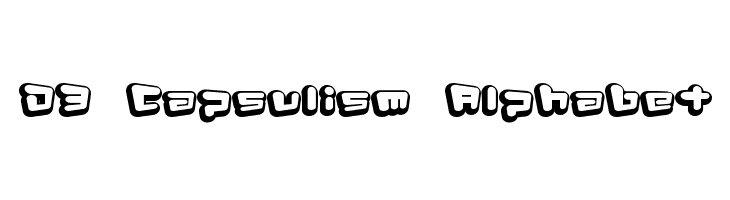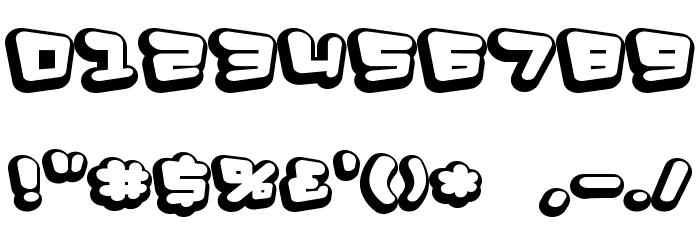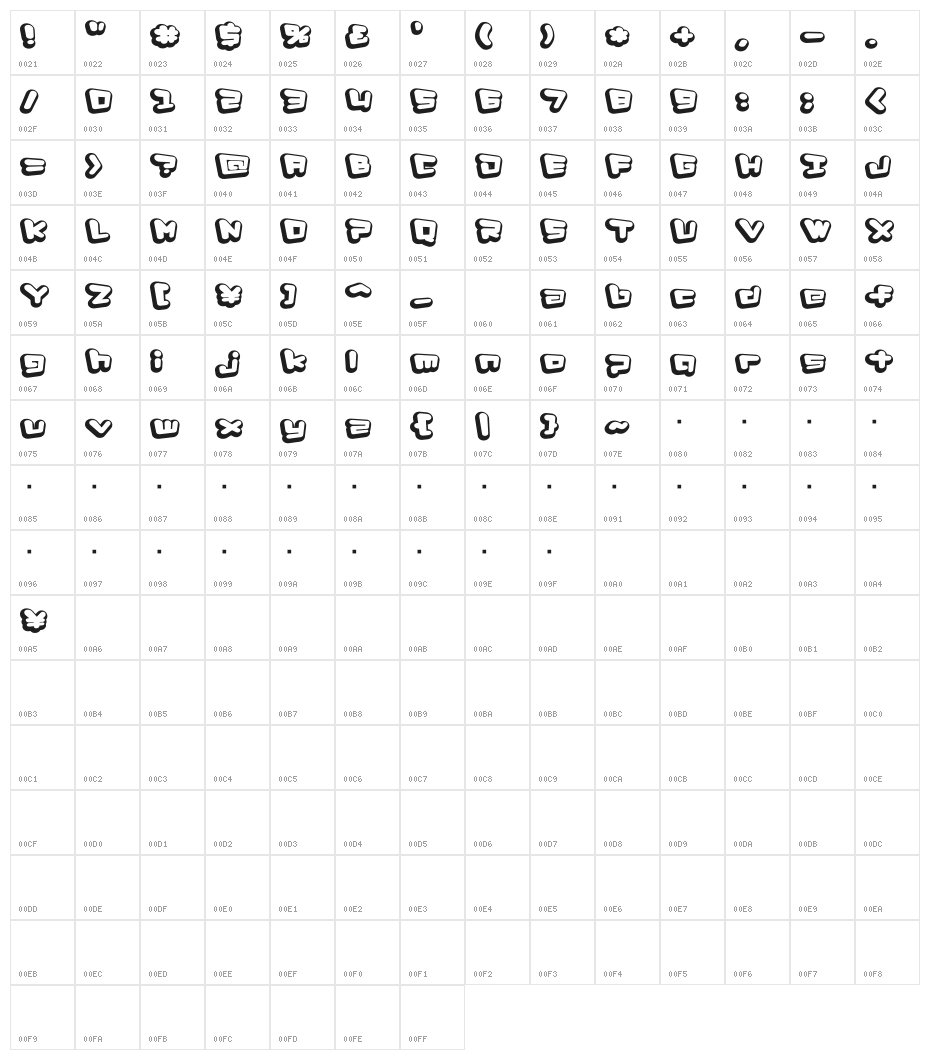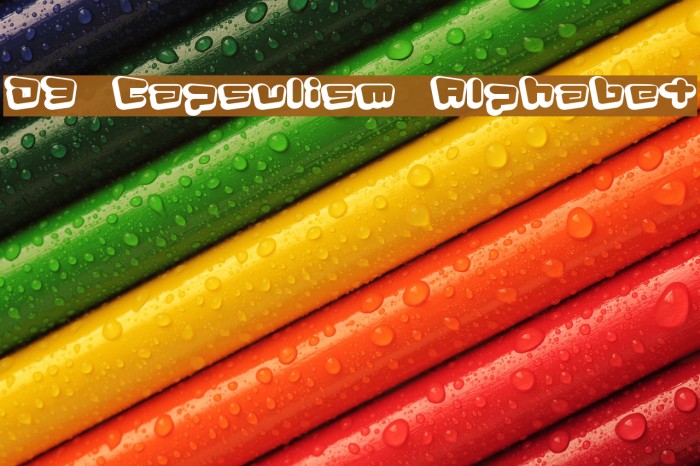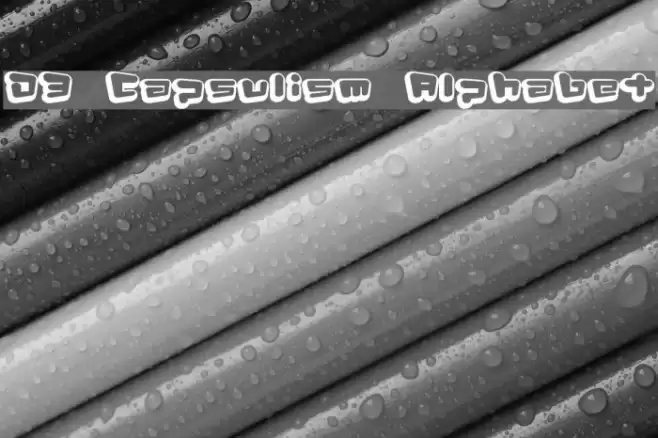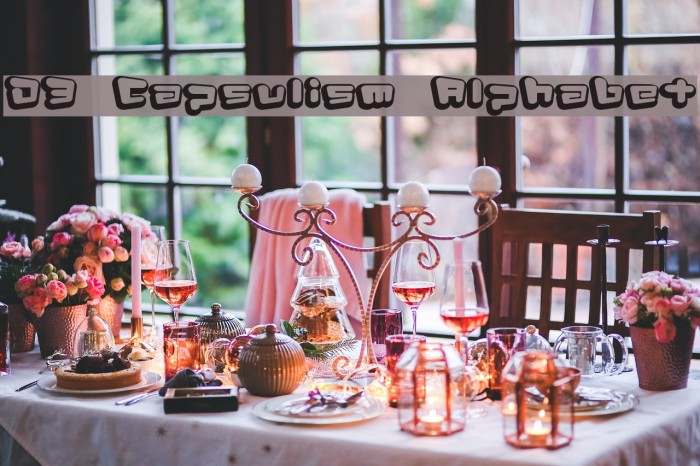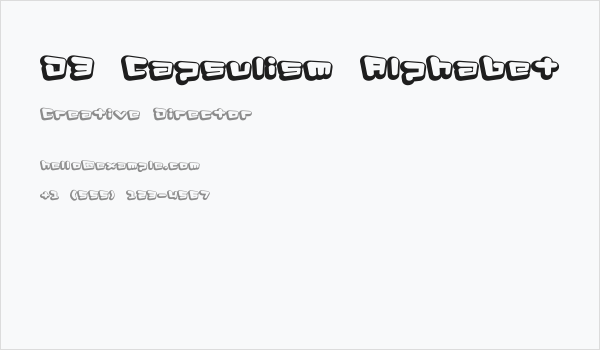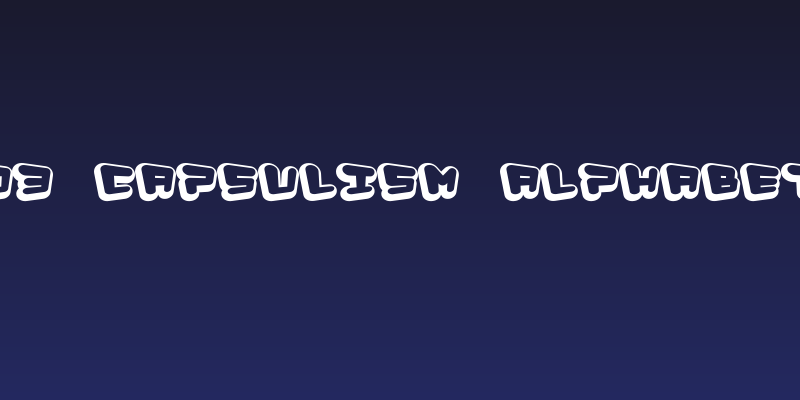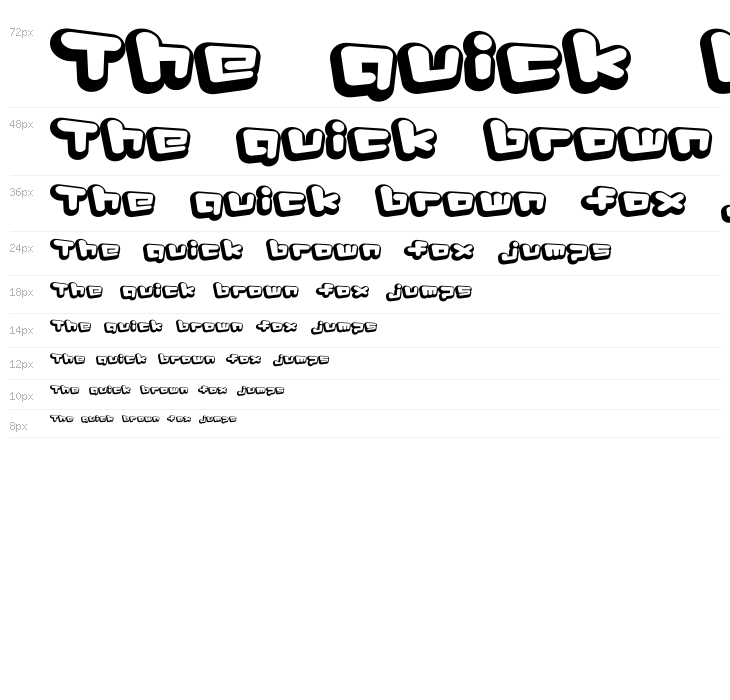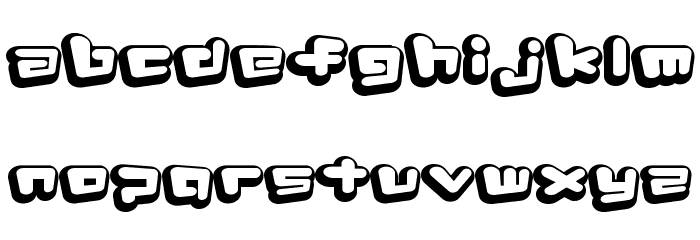
D3 Capsulism Alphabet Font
D3 Capsulism Alphabet Description
This playful and bold font features a unique bubble-like design with thick outlines, giving it a cartoonish and friendly appearance. The characters are rounded and slightly irregular, adding a whimsical touch. The font maintains a consistent weight throughout, with each letter and number exhibiting a uniform thickness. The spacing between characters is moderately tight, enhancing its cohesive look. This style is particularly eye-catching, making it ideal for projects that require a fun and engaging visual element.
| Proposed Projects | Ideal for children's books, comic strips, playful branding, and party invitations. |